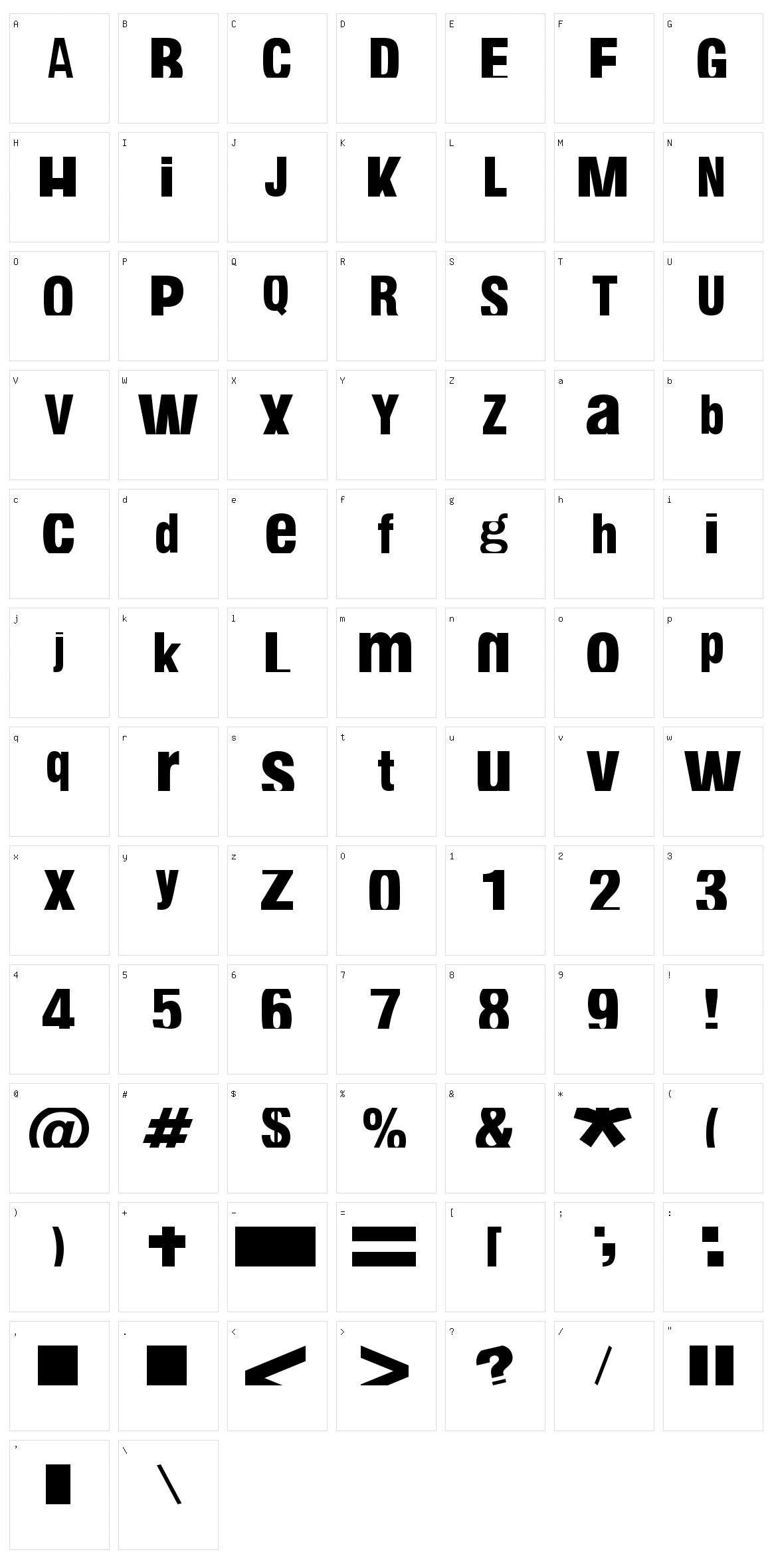
The free font Fabianestem is carefully designed by Juan Esteban Muñoz Bedoya, showcasing a thoughtful balance of creativity and usability and falls under the Distorted font style. When you download the ZIP file, it contains only 9.96 KB of font files, making it lightweight and quick to download. Please review the license details below to understand permitted usage and distribution rights. If license information is not available, we recommend using this font for personal projects only or contacting the author directly for commercial usage permissions.